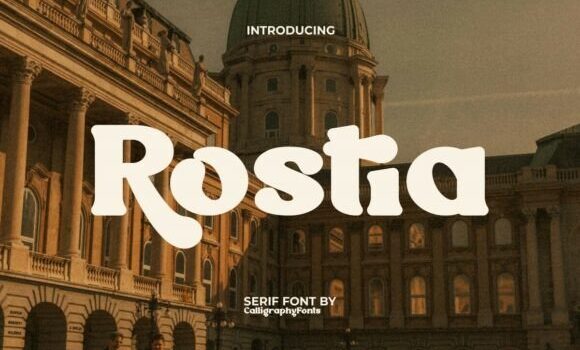
rostia
Rostia Font – Free Download Introduction to Rostia Font is a vintage serif display font created with a modern style by classic bold typeface and equipped with ligature characters that make this font more blended in a retro